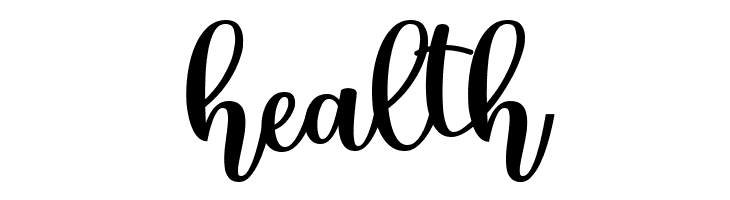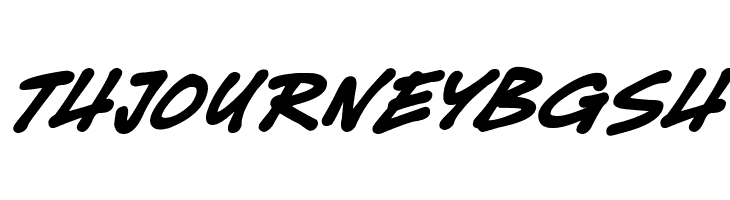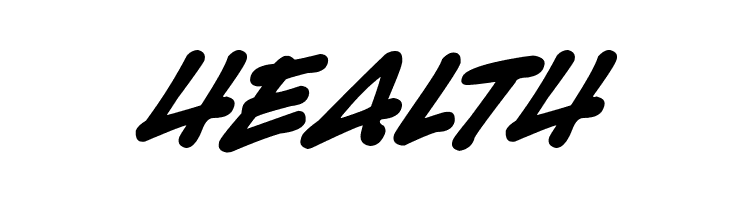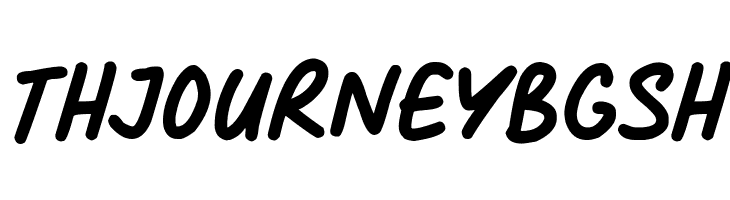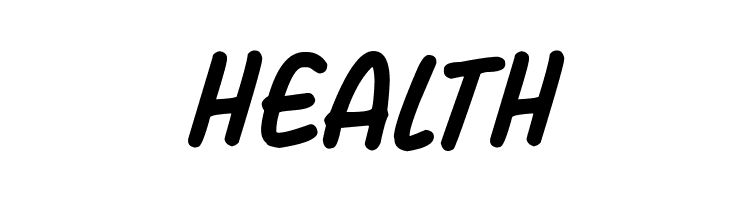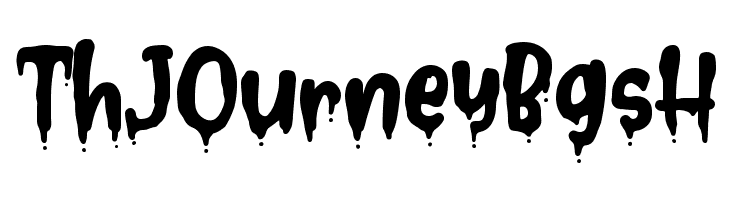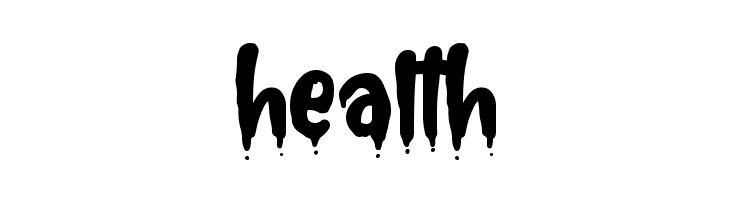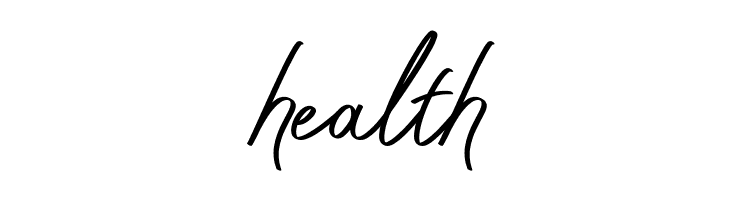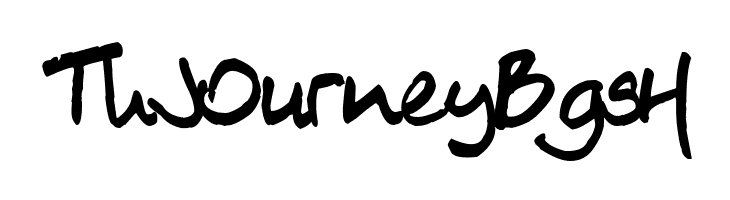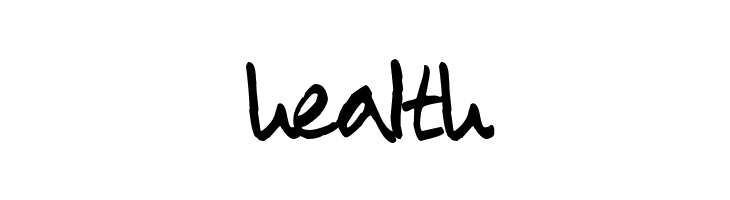
• Chill Blood
A bold, dripping font perfect for horror-themed designs.
• Chinese Cally TFB
A fluid and expressive calligraphy font inspired by traditional Chinese brush writing.
• ChN1 Regular
• Cholis
A dynamic, expressive handwritten font with bold, fluid strokes and a modern, playful aesthetic.
• CHRIS BOX
A festive, gift box-themed font with bold, geometric characters and ribbon accents.
• Christian Icons
• Christmas Cards xxx Italic
A bold, playful script font with a handwritten style.
• Christmas Cheer Italic
A bold, italicized script font with a festive and playful style.
• Christmas Curls
• Christmas Holland Personal Use
A festive, cursive script font with bold strokes and elegant loops.